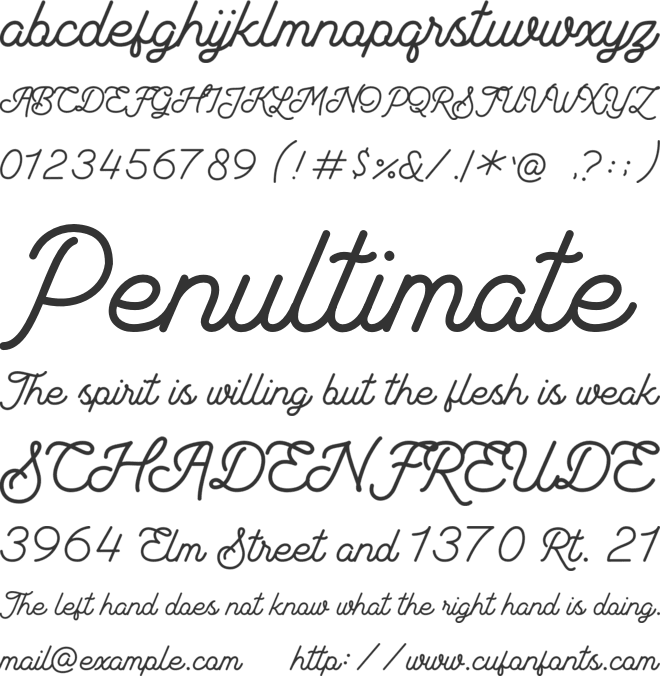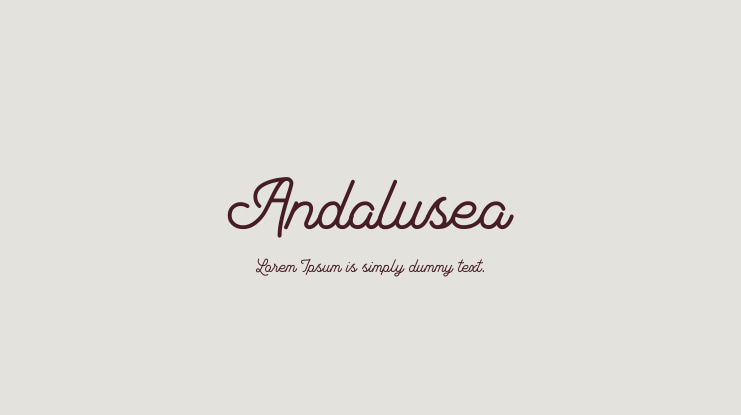
Andalusea Font
Introducing Andalusea Script Font, a monoline by Variatype.
This font is a classic, stylish, simple script font. Its perfectly matched with your brand logo, personal identity, business card, t-shirt & more products. Support multilingual, including 50+ ligatures & swashes.